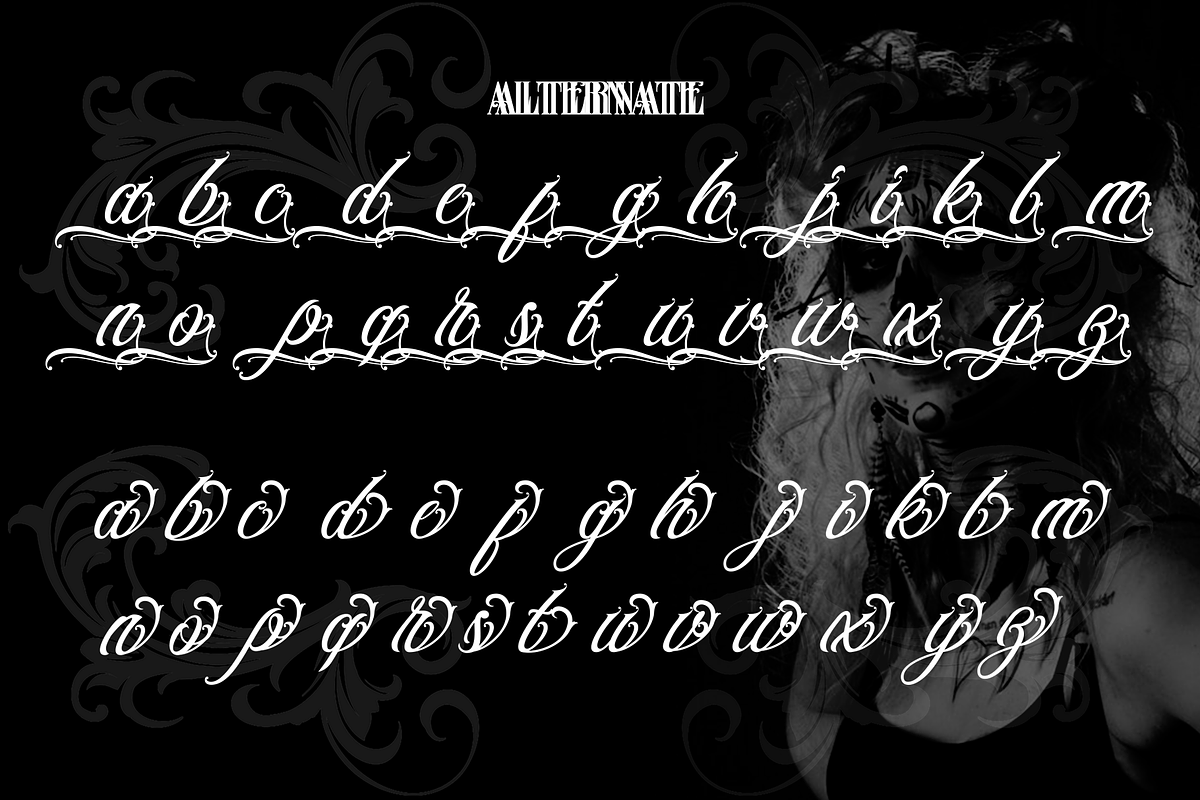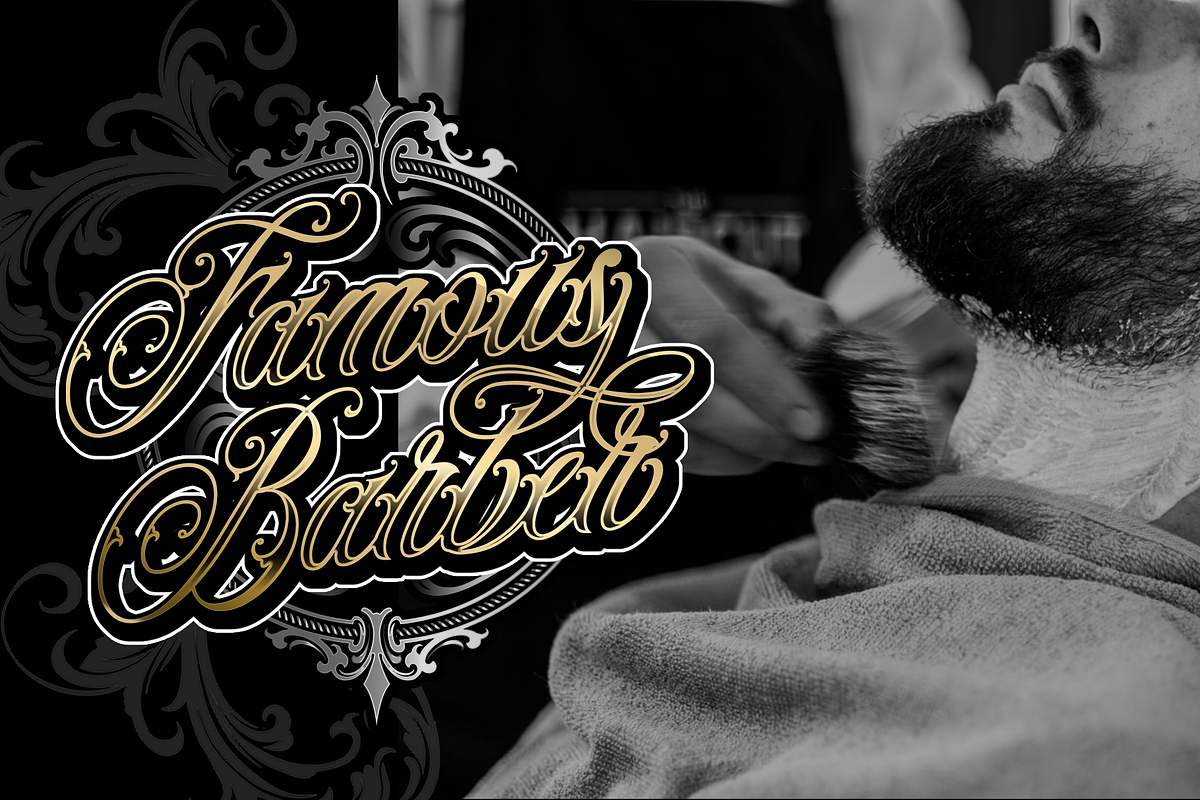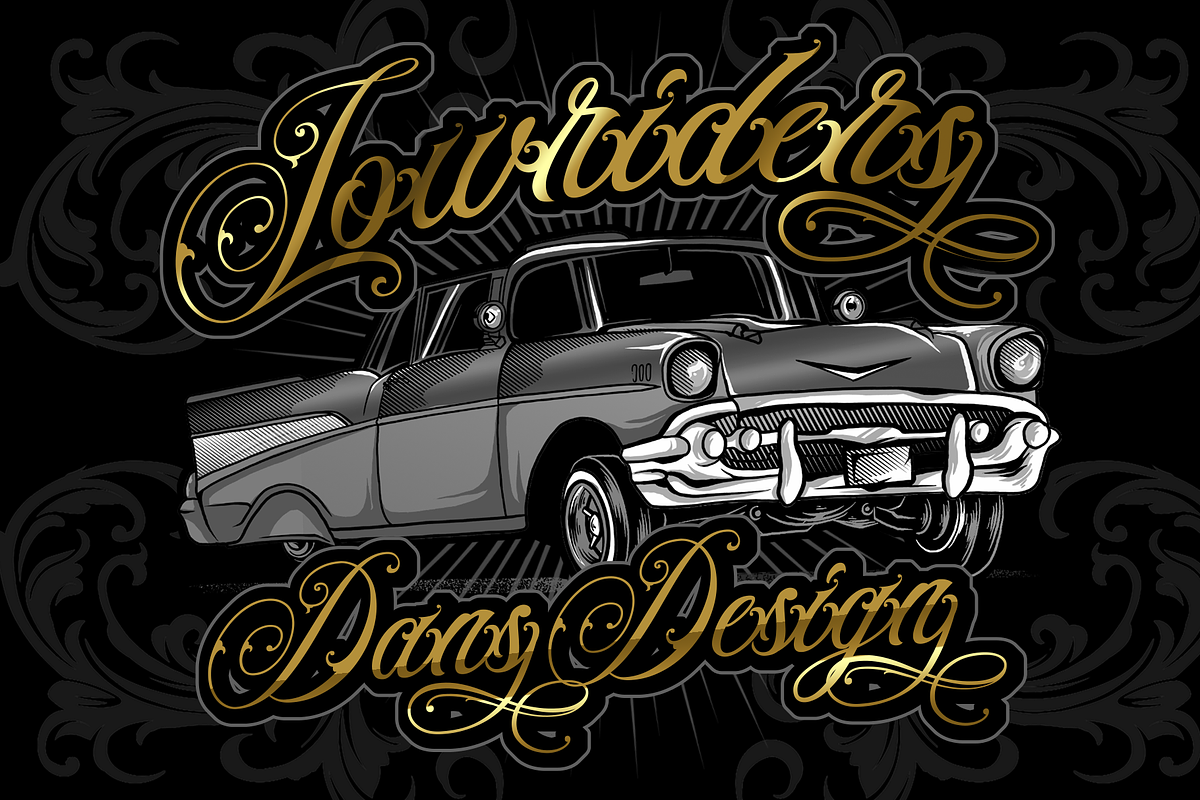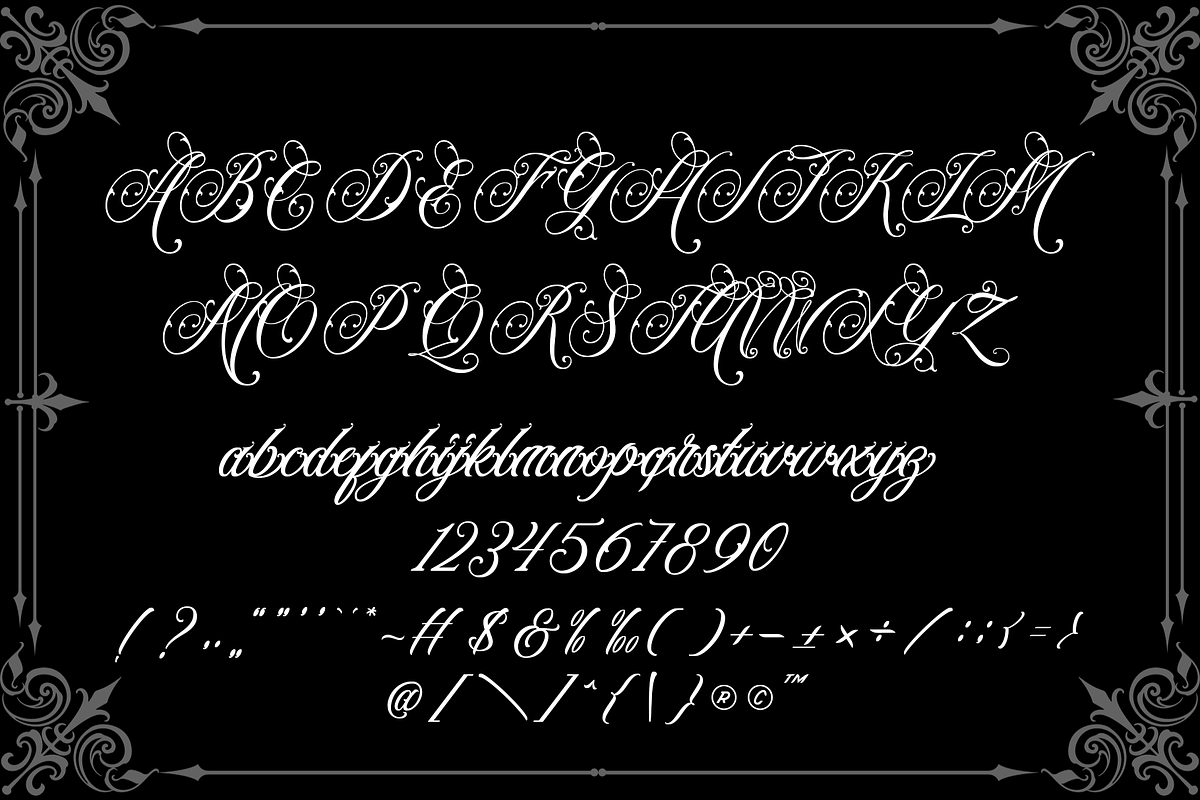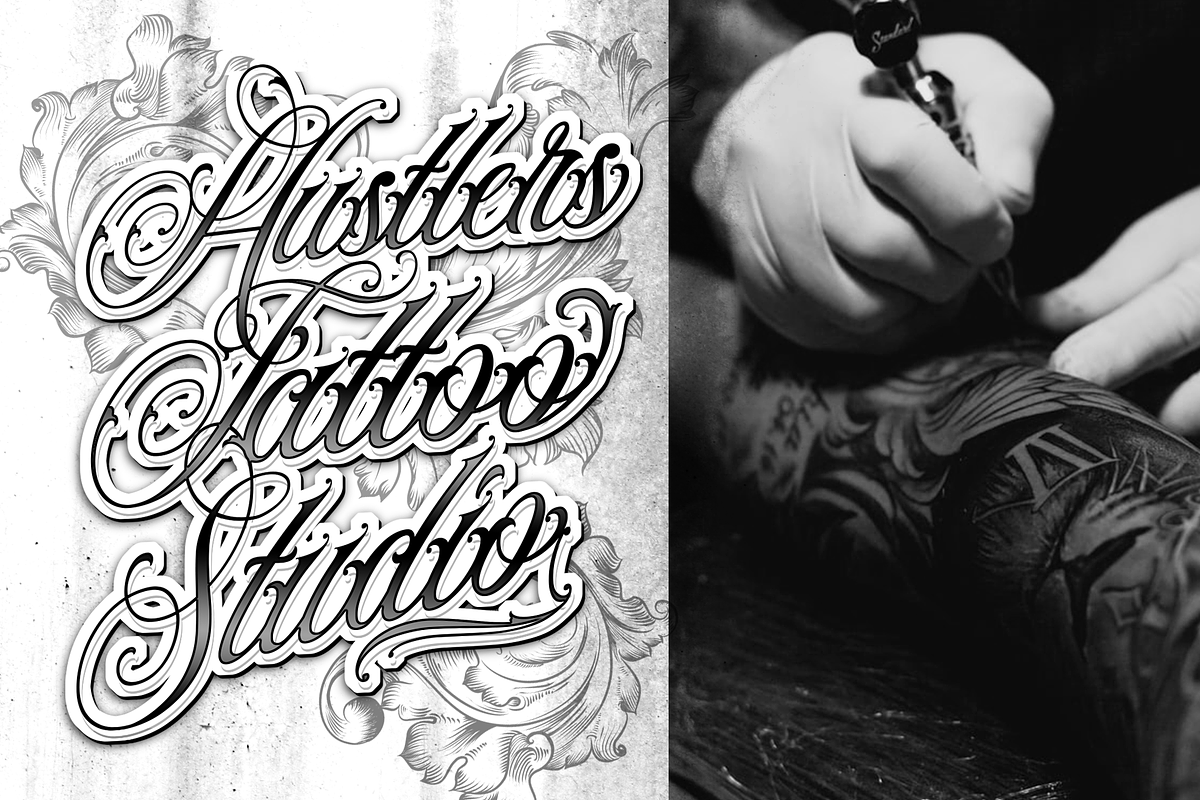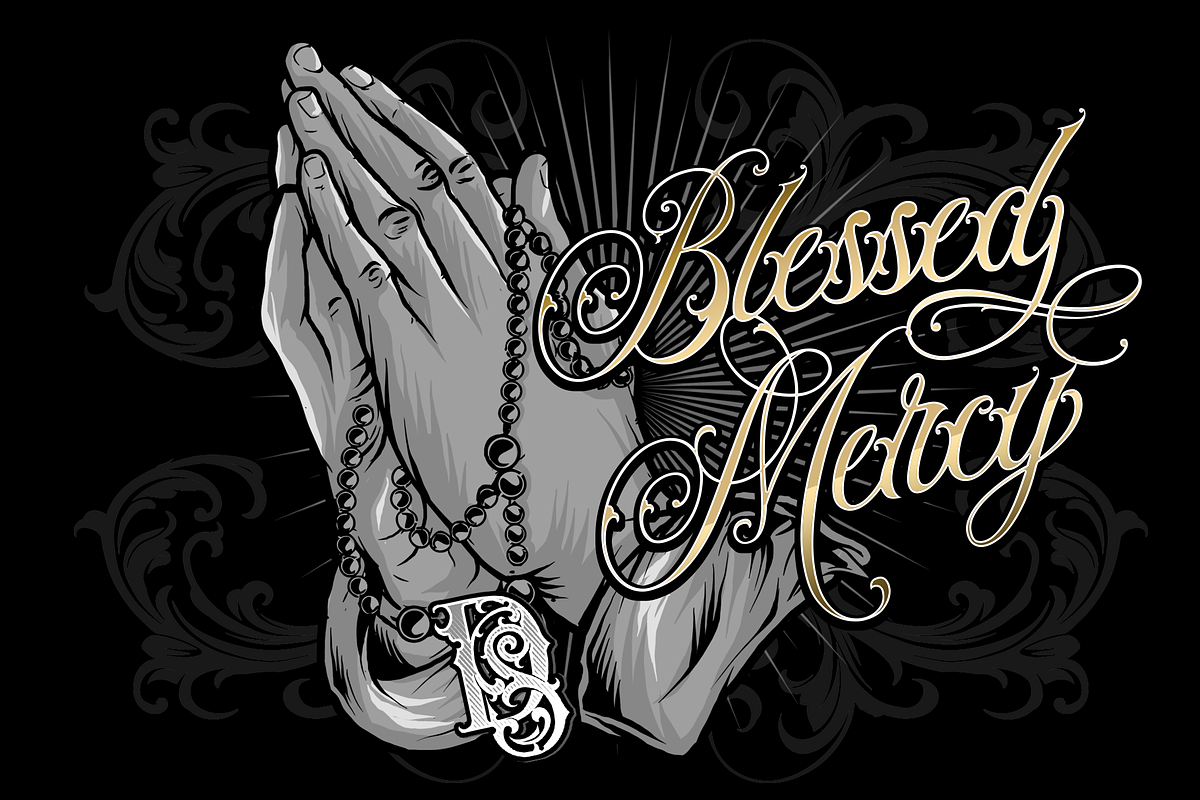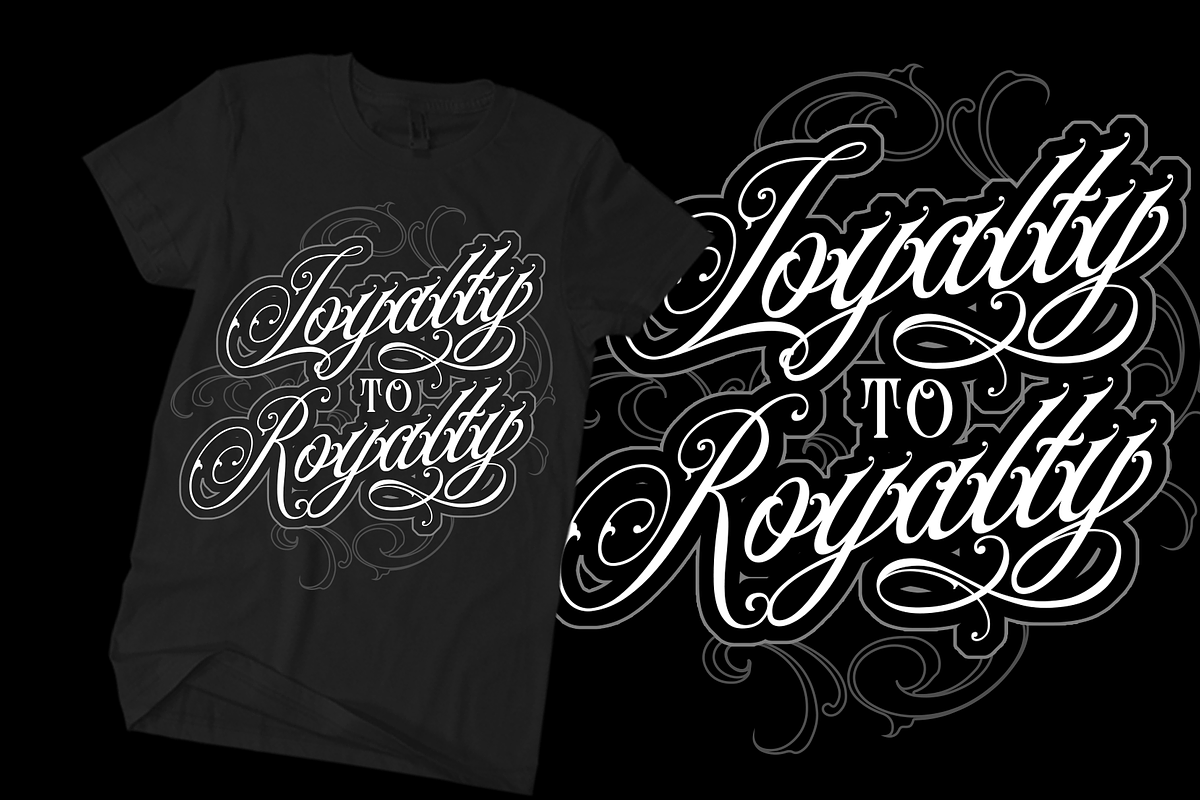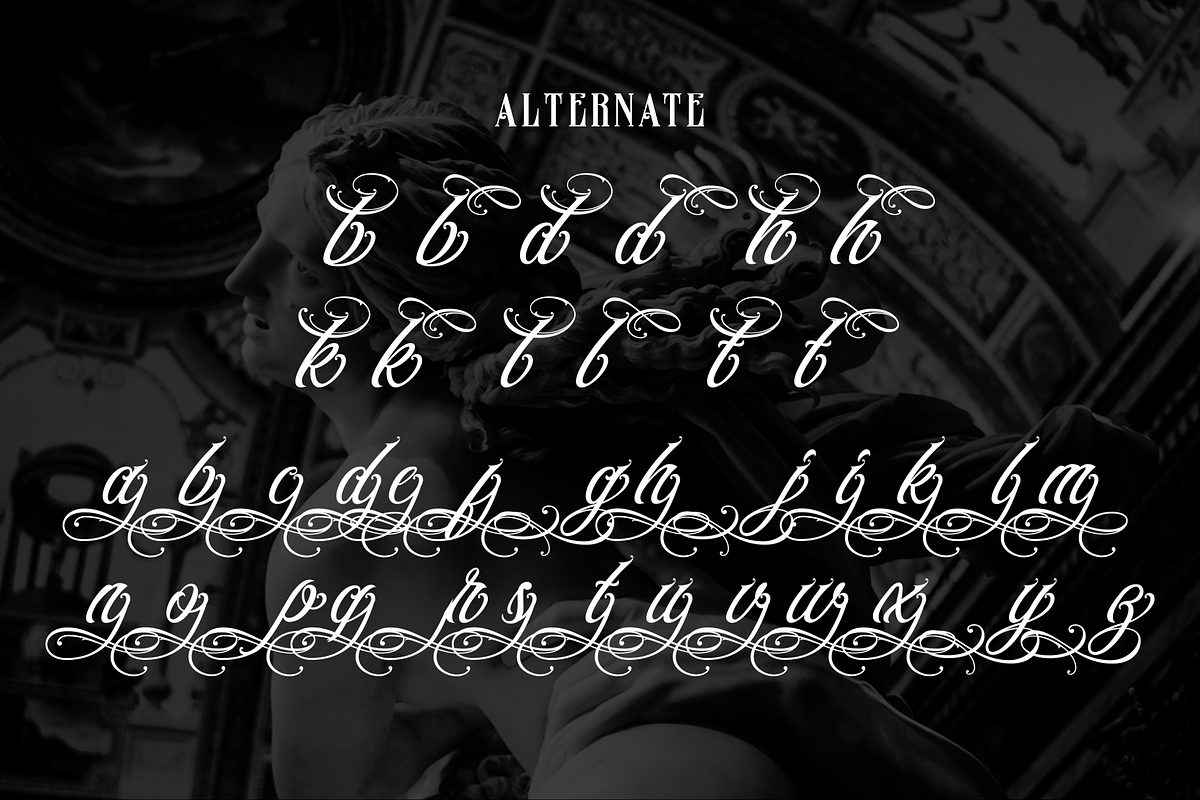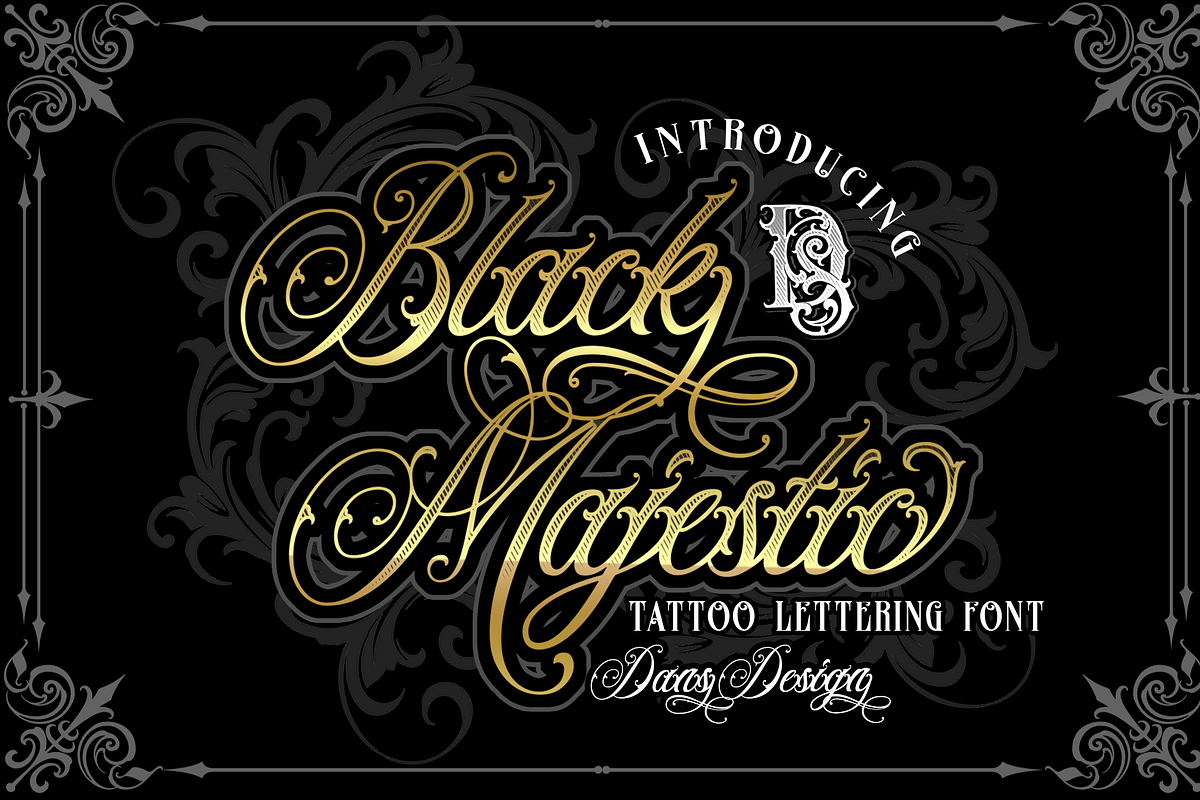
Black Majestic
Black Majestic – Vintage Blackletter Font with Tattoo & Gothic Style
Black Majestic is a premium blackletter typeface designed by Dansdesign, combining classic elegance with bold, ornamental details. This font delivers a dramatic and timeless look, making it the perfect choice for tattoo designs, vintage logos, retro posters, product packaging, album covers, and gothic-inspired branding.
Featuring strong letterforms, intricate decorative strokes, and a distinctive artistic flair, Black Majestic instantly elevates your typography and creates a powerful visual impact. Available in OTF and TTF formats and fully PUA-encoded, it allows easy access to swashes, ligatures, and unique alternates in design software like Adobe Photoshop, Illustrator, CorelDRAW, and online editors.
Key Features of Black Majestic:
Classic Blackletter Style – Perfect for tattoos, gothic layouts, and vintage typography projects.
Versatile Usage – Ideal for logos, branding, fashion labels, posters, signage, and product packaging.
Bring boldness, elegance, and a timeless aesthetic to your next project with Black Majestic – a font that speaks volumes in every letter.